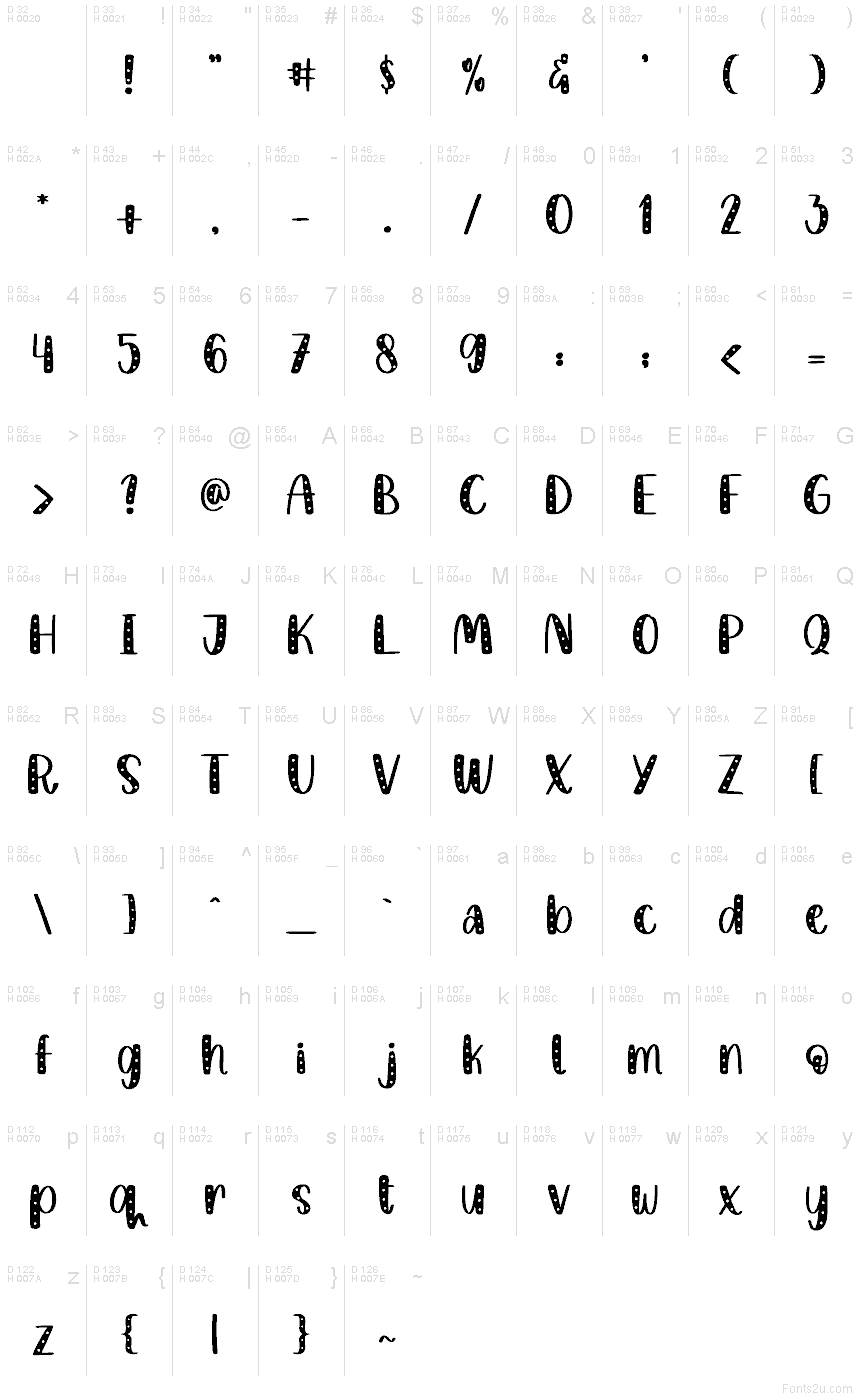
APRICOT
Apricot font by Mozatype is a free decorative display typeface with a bubbly, hand-lettered feel and playful dot cutouts marching down each stroke. The rounded forms look like they’ve been drawn with a thick paint marker, giving it a soft, crafty texture that feels friendly and approachable. Those inky black shapes and evenly spaced dots create a marquee-style sparkle that instantly pulls focus on any layout.
Using Apricot, this free font, you can add cheerful personality to kids’ book covers, classroom posters, birthday invitations, party banners, packaging for sweets, and whimsical logos. It shines on headings and short phrases, especially when you give it plenty of breathing room. Pair Apricot with a clean, simple sans serif for body text so its bold, dotted letters stay the star of the show.